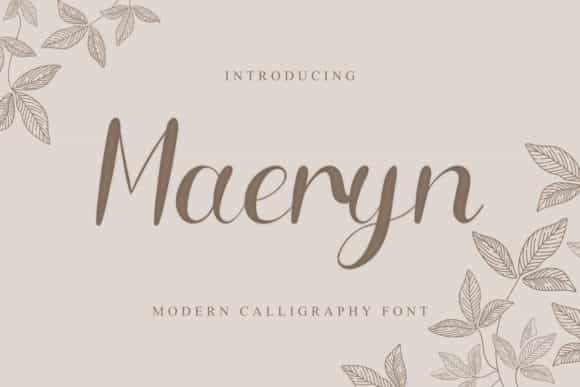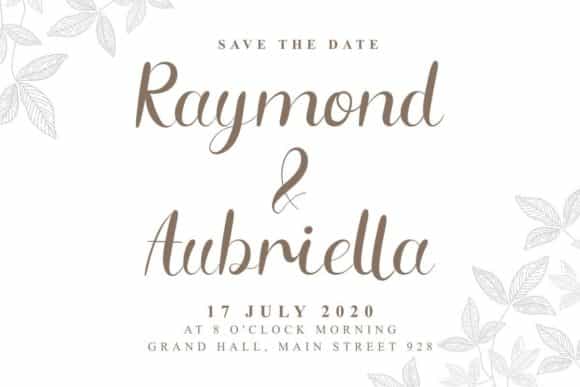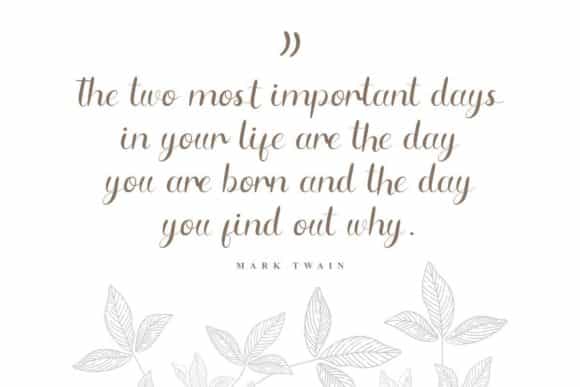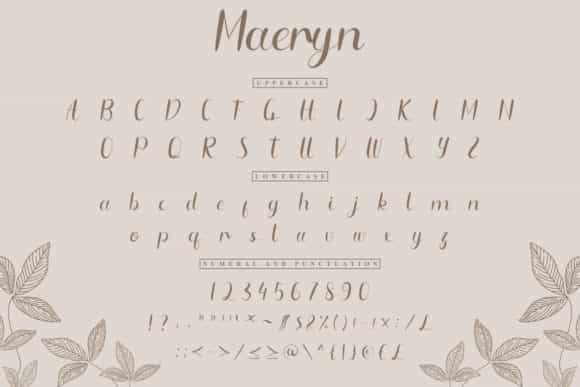
Maeryn condenses elegance into one truly remarkable handwritten font. While maintaining it’s classical calligraphic influences, this versatile font remains contemporary and fresh – making it suitable for use across a range of crafty projects from letterheads and titles to stationery designs.